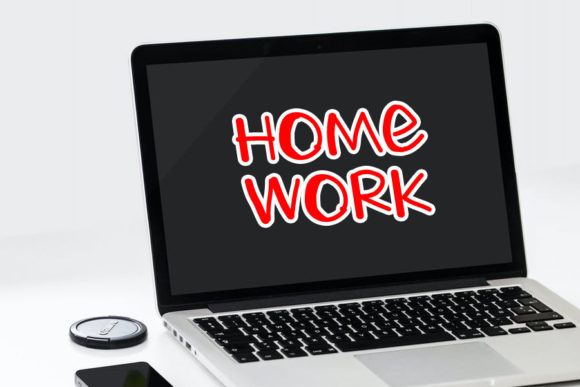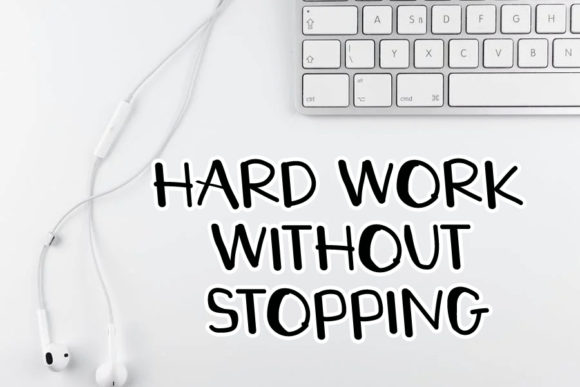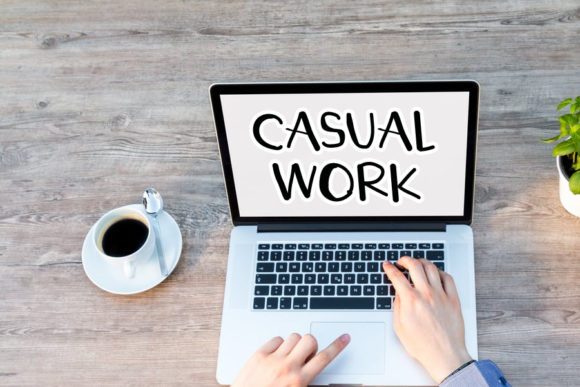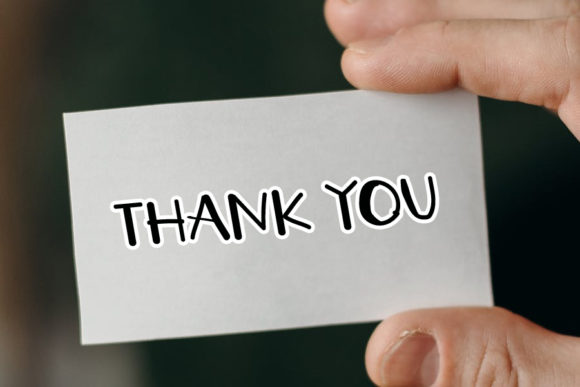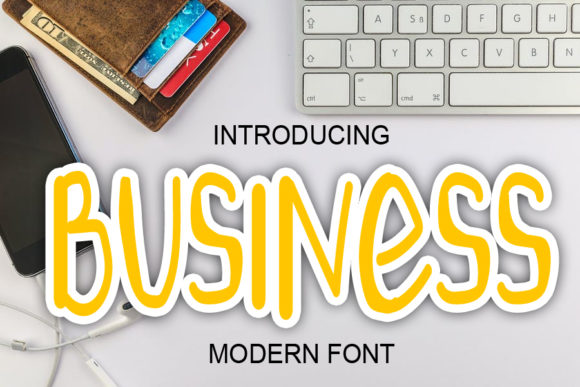
Introducing Business Font: The Perfect Blend of Cuteness and Professionalism
Are you tired of using the same old boring fonts for your designs? Look no further! Business Font is here to revolutionize the way you approach typography. This adorable and relaxed display font is perfect for designers and crafters who want to add a touch of personality to their work. With its natural and quirky vibe, Business Font is sure to brighten up each of your designs and make them stand out from the crowd.
The Characteristics of Business Font
So, what makes Business Font so special? For starters, it’s a display font, which means it’s designed to make a statement. Its cute and relaxed style is perfect for headlines, titles, and other attention-grabbing elements. The font has a natural feel to it, with a subtle irregularity that gives it a hand-crafted look. This quirkiness is precisely what sets Business Font apart from more traditional fonts and makes it perfect for designers who want to add some personality to their work.
The Benefits of Using Business Font
There are many benefits to using Business Font in your designs. Here are just a few:
- Adds Personality to Your Designs: Business Font is the perfect way to inject some personality into your work. Its unique style and quirky vibe make it stand out from more traditional fonts.
- Perfect for Display Text: Whether you’re working on a logo, a headline, or a title, Business Font is the perfect choice. Its display font style is designed to grab attention and make a statement.
- Easy to Read: Despite its quirky style, Business Font is surprisingly easy to read. This makes it perfect for designs where you want to make a statement but still need to communicate a message.
- Versatile: Business Font can be used in a wide range of designs, from digital projects to print materials. Its relaxed style makes it perfect for everything from logos and branding to posters and flyers.
How to Use Business Font in Your Designs
So, how can you start using Business Font in your designs? Here are a few tips:
- Use it as a Headline Font: Business Font is perfect for headlines and titles. Use it to grab attention and make a statement.
- Pair it with Other Fonts: Business Font pairs well with a wide range of other fonts. Try pairing it with a more traditional font for a contrasting look.
- Experiment with Different Sizes: Business Font looks great in a variety of sizes. Experiment with different sizes to find the one that works best for your design.
- Don’t be Afraid to Get Creative: Business Font is a versatile font that can be used in a wide range of designs. Don’t be afraid to get creative and try new things!
Who is Business Font Suitable For?
Business Font is perfect for designers and crafters who want to add a touch of personality to their work. Here are a few examples of who might find Business Font useful:
- Graphic Designers: Business Font is perfect for graphic designers who want to create eye-catching logos, branding, and marketing materials.
- Crafters: If you’re a crafter who loves to create handmade cards, gift tags, and other paper crafts, Business Font is a great choice.
- Small Business Owners: If you’re a small business owner who wants to create a unique and memorable brand, Business Font is a great option.
In conclusion, Business Font is a unique and versatile font that’s perfect for designers and crafters who want to add a touch of personality to their work. Its natural and quirky style makes it stand out from more traditional fonts, and its ease of use makes it perfect for a wide range of designs. Whether you’re working on a logo, a headline, or a title, Business Font is a great choice. So why not give it a try and see the difference it can make in your designs?